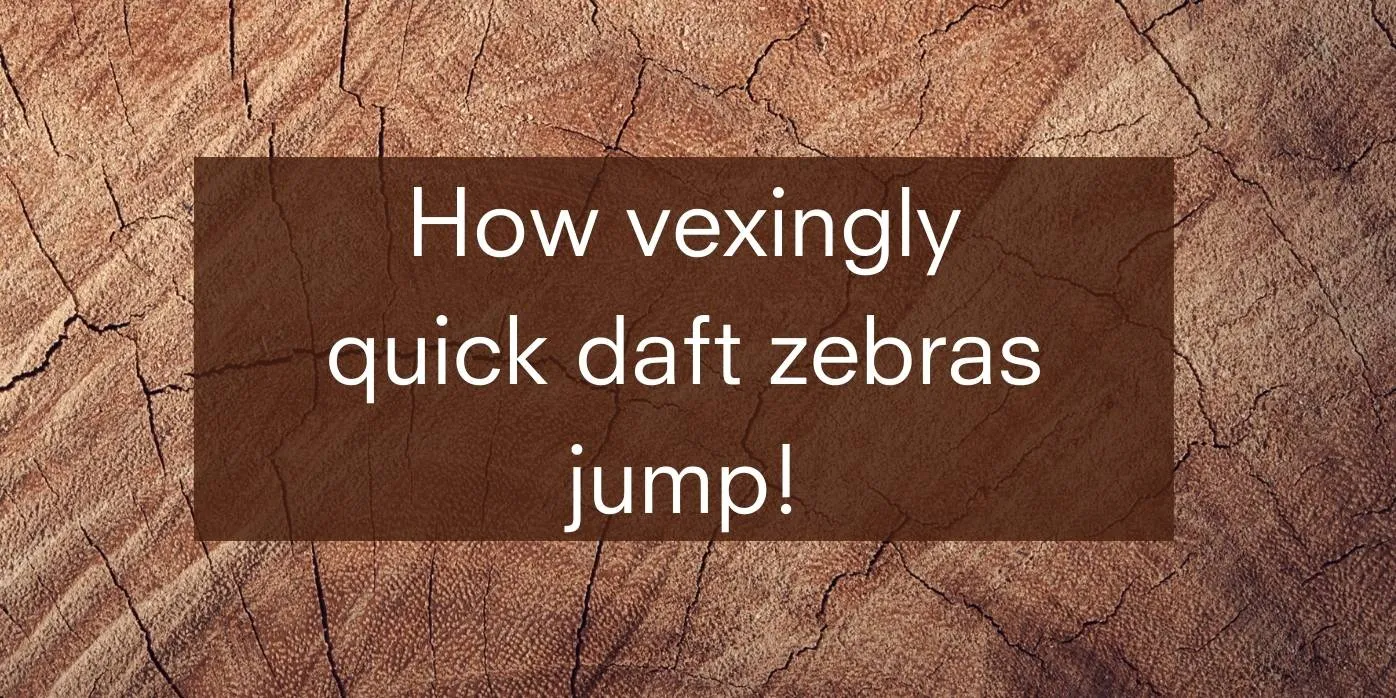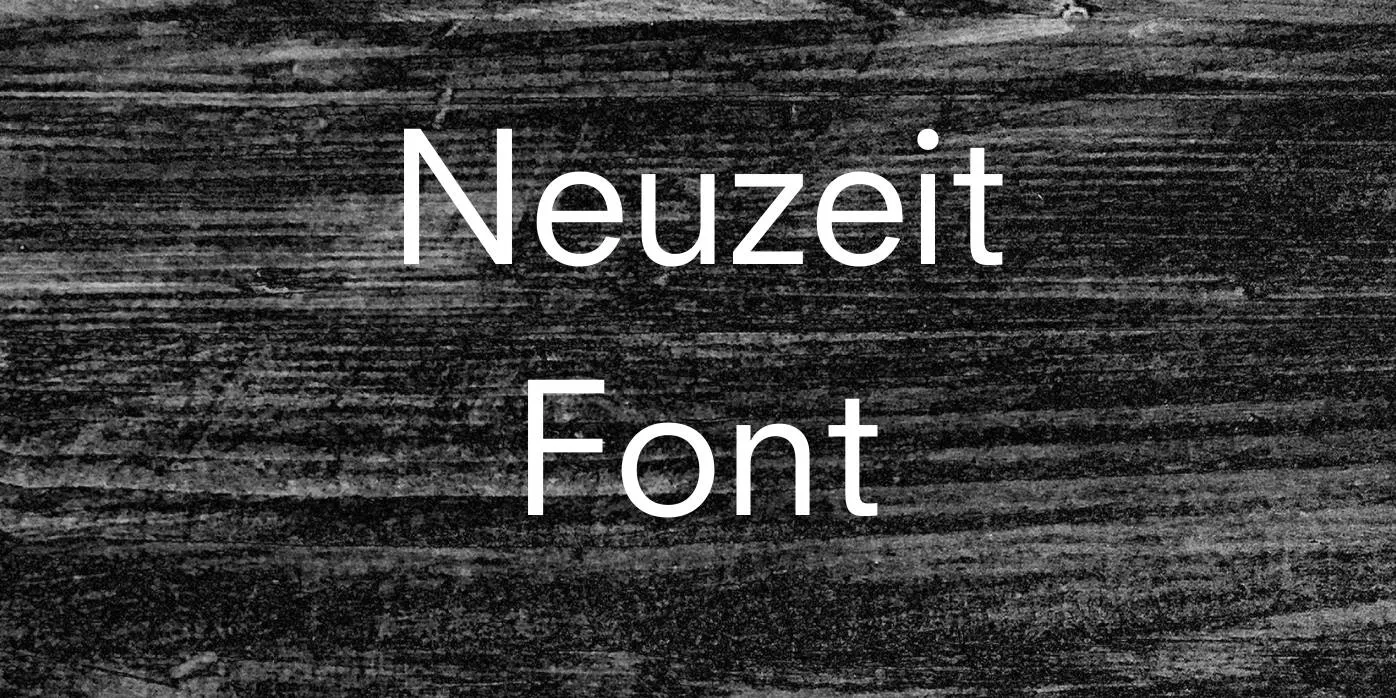
Neuzeit Font
Neuzeit Font was designed by Whilhelm Pischner in the year 1928. This classic typeface belongs to the Sans-Serif typeface. It is also one of the most popular typefaces of all time. This typeface is specified by the CSS Family.
This cozy font has a very simple and clean design which makes it perfect for text-based designs. It comes in six different weights from thin to black. These special weights make it versatile enough for both web and print designs. Its round corners and ample spacing also give it a very modern look.
This font is perfect for MS Word, and Canva. Nunito Sans Font is similar to this typeface. However, its thin weight might not be suitable for long passages of text. If you need a versatile font that looks both modern and classic, This awesome Font is a great choice.